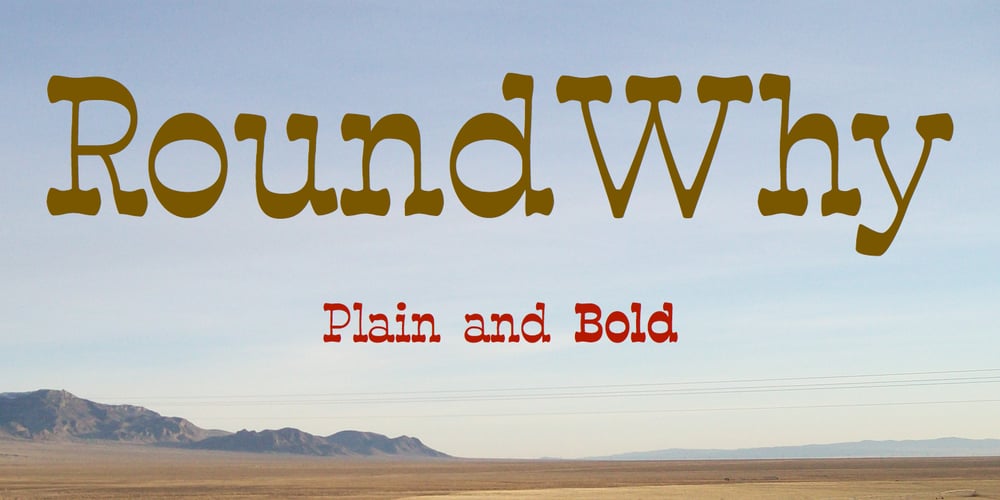
RoundWhy Font Family was designed by Robert Schenk and published by Ingrimayne Type. RoundWhy contains 2 styles and family package options. Font breeding is much like animal breeding, where stallion and mare, or bull and cow, or boar and sow are carefully matched in hopes of yielding a robust and useful offspring. When typefaces RoundUp with fat, rounded serifs and WyomingSpaghetti with fat, squarish serifs were chosen to be parents, it was clear that their offspring would inherit large serifs. But to discover exactly what the offspring would look like, the pairing needed to be consummated, which was done with the “Blend Fonts” commend in Fontographer. The two styles of RoundWhy are the result.